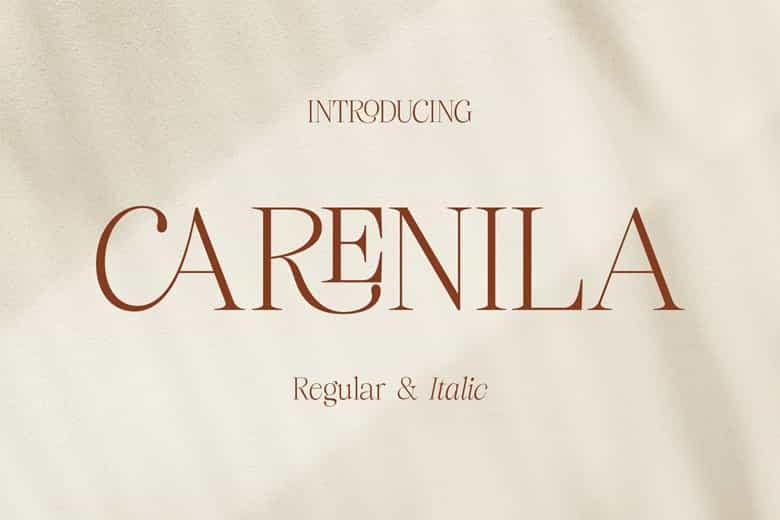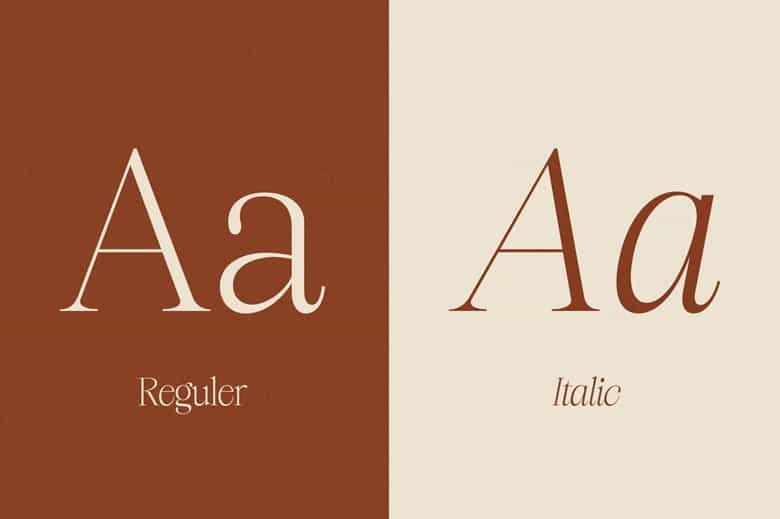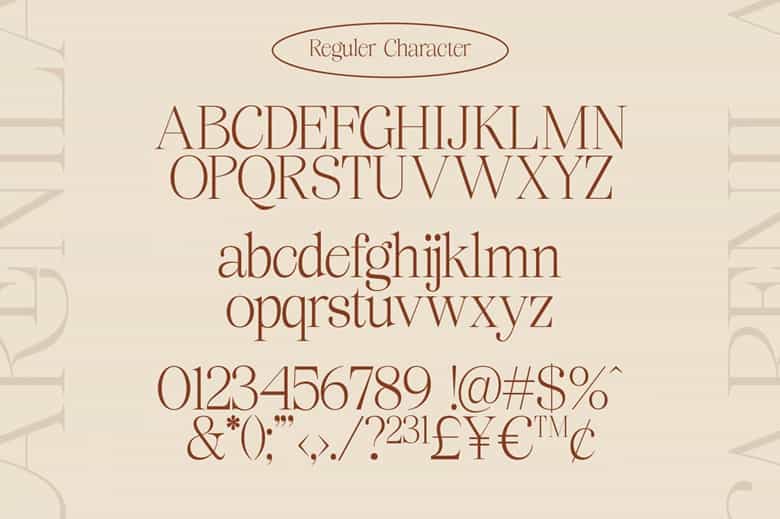
Carenila is a modern style serif font that comes in a regular and italic version.. You can then apply this font to branding, graphic designs, copywriting among others. This font is PUA encoded which means you can access all of the glyphs and swashes without any problem!